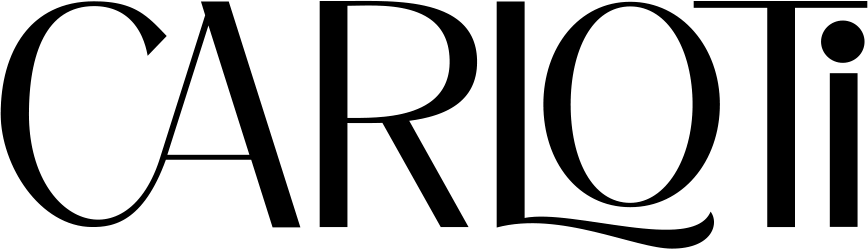
Carloti Font
If you would like to draw the audience’s attention to your typography, it’s best to select Carloti and you can assemble your ideal design effortlessly. This unbelievable luxury sans serif font will give a very engaging and modern feeling plus elegant and approachable characters.
The letterforms available for Carloti are all-caps A to Z alphabets and punctuations but there are no lower-case letters or numbers included. It’s an outstanding option for books, apps, games, movies, and flyers.
Introducing Carloti-A Sans Serif FontCarloti is a gorgeous uppercase sans serif font that will whisk you away to a place of style! We are hoping that through this elegance and passion edged font, you can maximize your designs, reign in sales or make lasting impressions. The ideal font for social media banners; posts, and ads, printed quotes, t-shirt designs, packaging, or even as a modern text overlay to any background image.